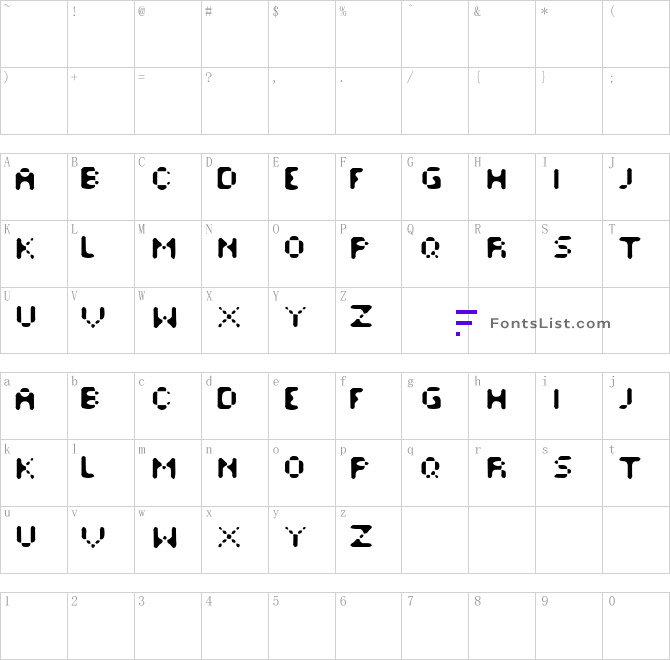
- Font Name:Afterfonts
Afterfonts.ttf is a very beautiful artistic font, Afterfonts.ttf is widely used in the design and printing of various books and pictures,Afterfonts.ttf has a strong visual impact,Afterfonts.ttf is a commonly used font in newspapers, magazines and books, and is used in posters, e-commerce Poster design, store design, logo design, font design and other fields.Afterfonts.